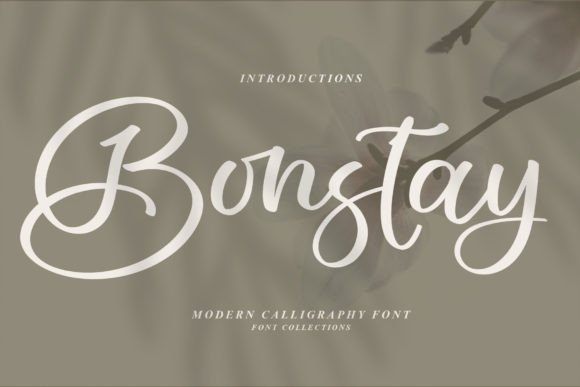
Introducing Bonstay Font: Elevate Your Designs with Timeless Elegance
Are you on the hunt for a font that exudes sophistication, elegance, and a touch of modern flair? Look no further than Bonstay Font, a stylish handwritten typeface that is sure to elevate your designs to new heights. Inspired by the timeless classics of calligraphy, Bonstay Font brings a contemporary atmosphere to the table, making it the perfect addition to your typography arsenal.
The Story Behind Bonstay Font
Bonstay Font is more than just a pretty face; it’s a carefully crafted typeface designed to bring balance and variation to your projects. With its roots in classic calligraphy, Bonstay Font has been meticulously designed to capture the essence of traditional lettering while infusing it with a modern twist. The result is a font that feels both nostalgic and fresh, perfect for designers and crafters looking to add a touch of sophistication to their work.
Key Features of Bonstay Font
- Stylish Handwritten Design: Bonstay Font boasts a beautiful, handwritten design that adds a personal touch to any project.
- Contemporary Atmosphere: With its clean lines and modern aesthetic, Bonstay Font brings a contemporary feel to your designs.
- Impeccable Form: Each letterform has been carefully crafted to ensure perfect balance and harmony, making it a joy to use in a variety of applications.
- Balanced and Varied: Bonstay Font offers a range of variations, allowing you to add depth and interest to your designs.
Why Choose Bonstay Font?
So, what sets Bonstay Font apart from other fonts on the market? For starters, its unique blend of classic and modern elements makes it incredibly versatile, suitable for a wide range of projects, from branding and packaging to wedding invitations and digital marketing materials. Additionally, its impeccable form and balanced design ensure that your text remains clear and legible, even at smaller sizes.
Whether you’re a professional designer or a crafter looking to add a personal touch to your projects, Bonstay Font is the perfect choice. Its stylish design and contemporary atmosphere make it ideal for:
- Branding and Identity: Create stunning logos, business cards, and letterheads that showcase your brand’s personality.
- Wedding and Event Planning: Add a touch of elegance to your wedding invitations, menus, and other event materials.
- Digital Marketing: Elevate your social media graphics, email headers, and website content with a sophisticated font.
- Crafting and DIY: Use Bonstay Font to add a personal touch to your handmade crafts, such as journals, planners, and gift tags.
Tips for Using Bonstay Font
To get the most out of Bonstay Font, here are a few tips to keep in mind:
- Experiment with Sizes: Bonstay Font looks great at a range of sizes, from large headings to smaller body text.
- Play with Colors: Try pairing Bonstay Font with different colors to add contrast and visual interest to your designs.
- Mix and Match: Combine Bonstay Font with other fonts to create a unique and eye-catching typography combination.
In conclusion, Bonstay Font is a stylish and sophisticated typeface that is sure to elevate your designs to new heights. With its timeless classic inspiration, contemporary atmosphere, and impeccable form, Bonstay Font is the perfect addition to your typography arsenal. Whether you’re a designer, crafter, or simply someone looking to add a touch of elegance to your projects, Bonstay Font is a must-have font that is sure to impress.